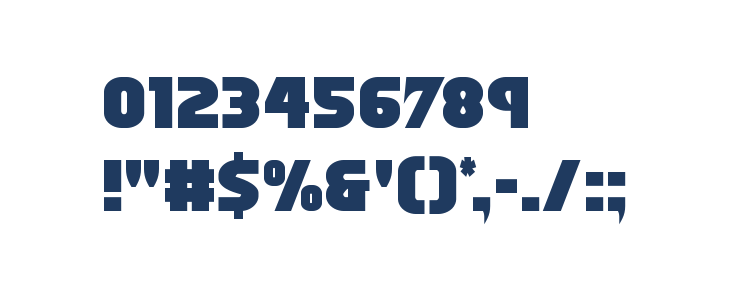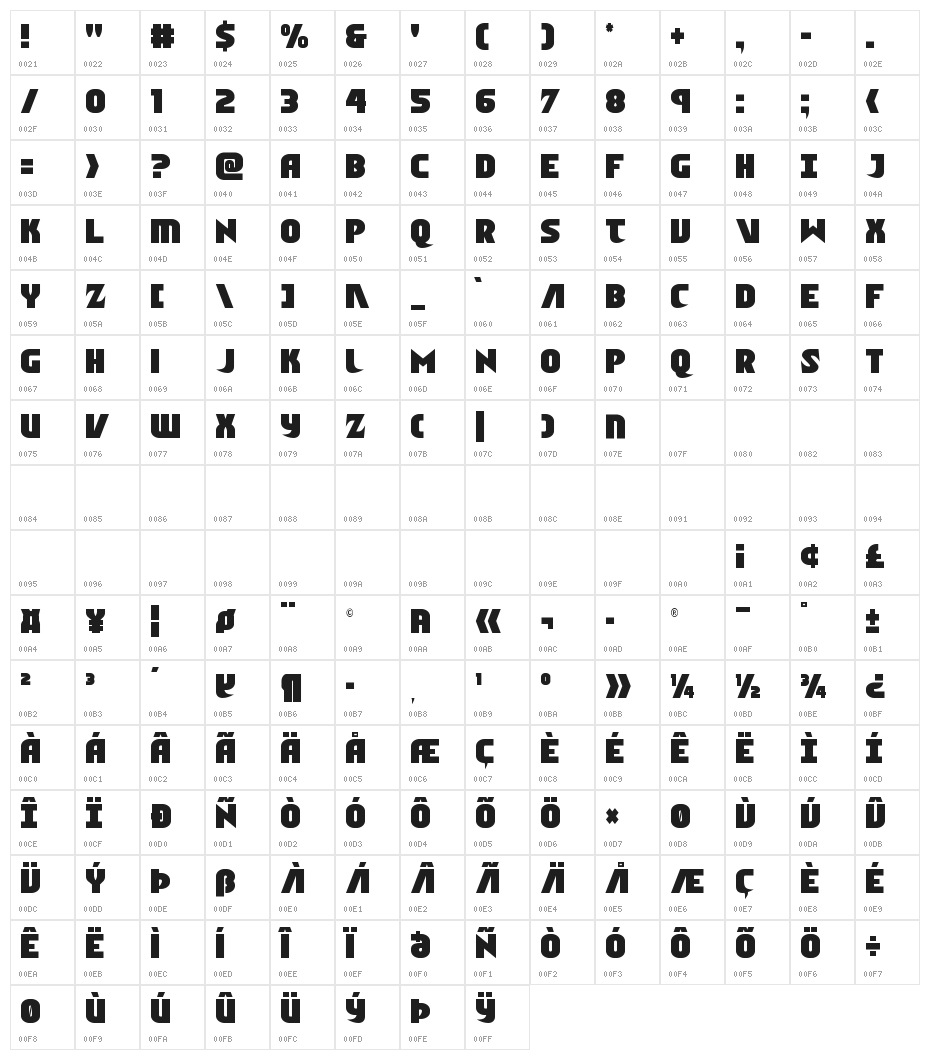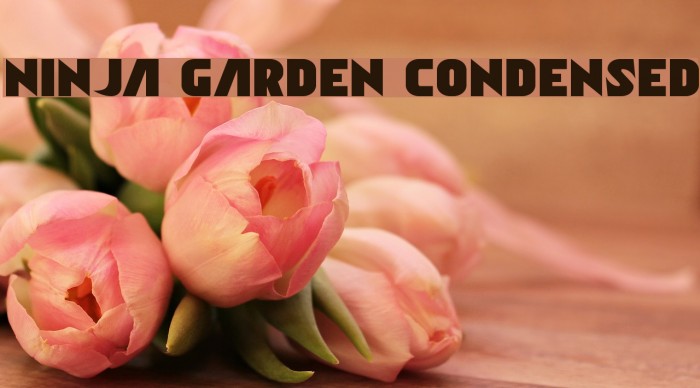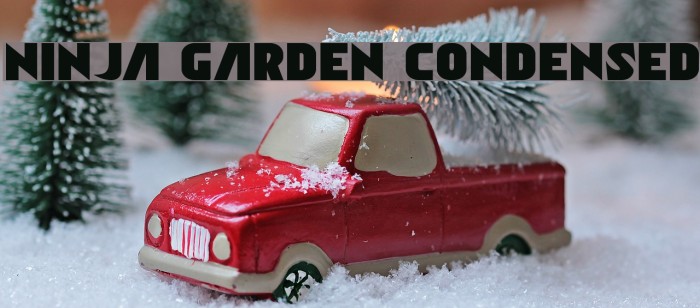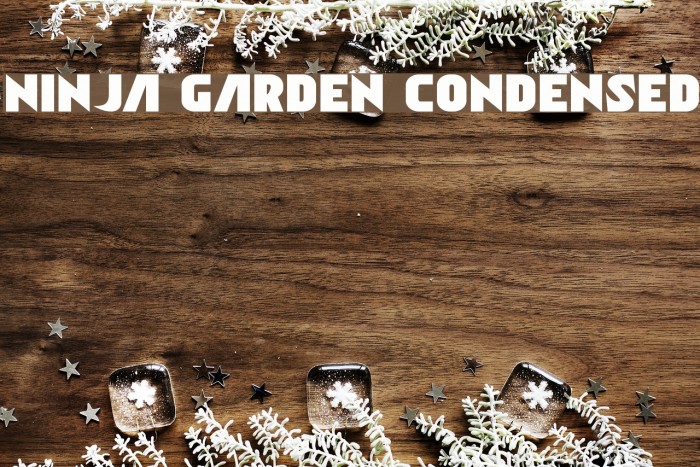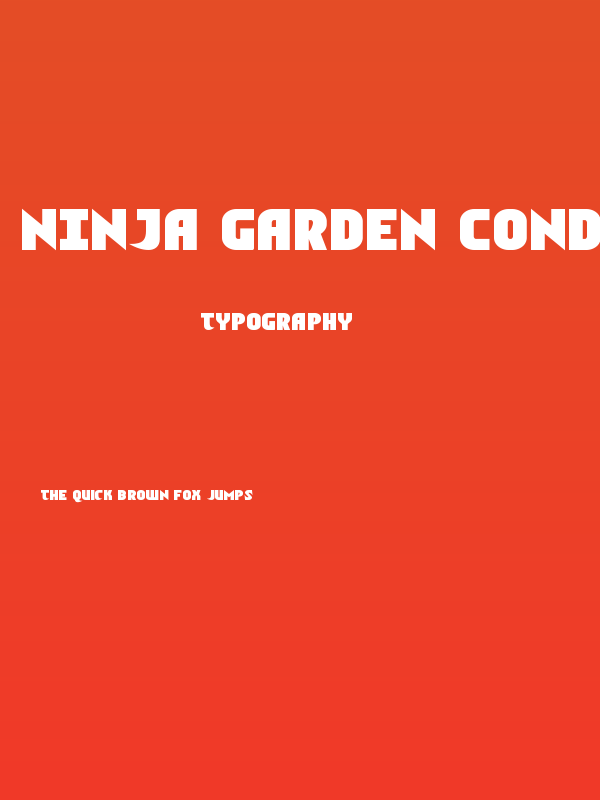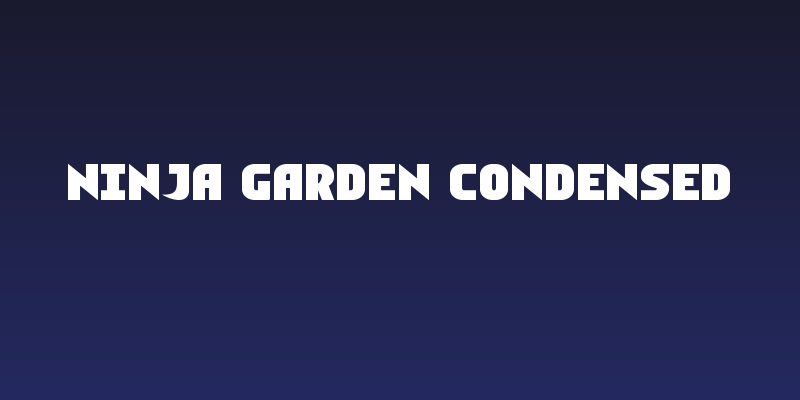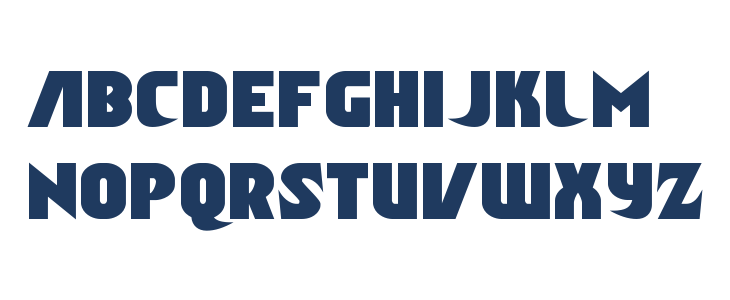
Ninja Garden Condensed Font
Ninja Garden Condensed Description
This bold and striking font features a condensed style with thick, block-like characters that convey a sense of strength and impact. The uppercase letters are particularly prominent, with sharp angles and a geometric design that adds a modern touch. The lowercase letters maintain the same boldness, ensuring consistency across text. Numbers and special characters are equally robust, making them stand out in any composition. The overall design is clean and straightforward, making it suitable for attention-grabbing headlines or logos.